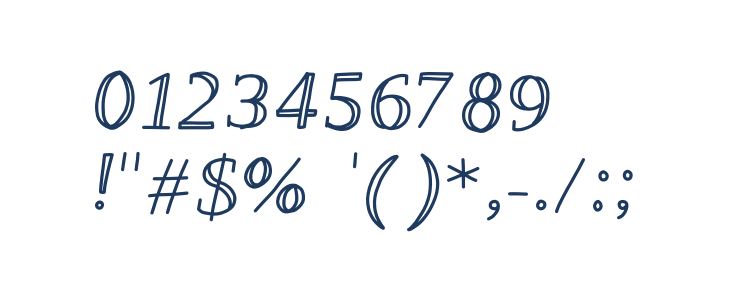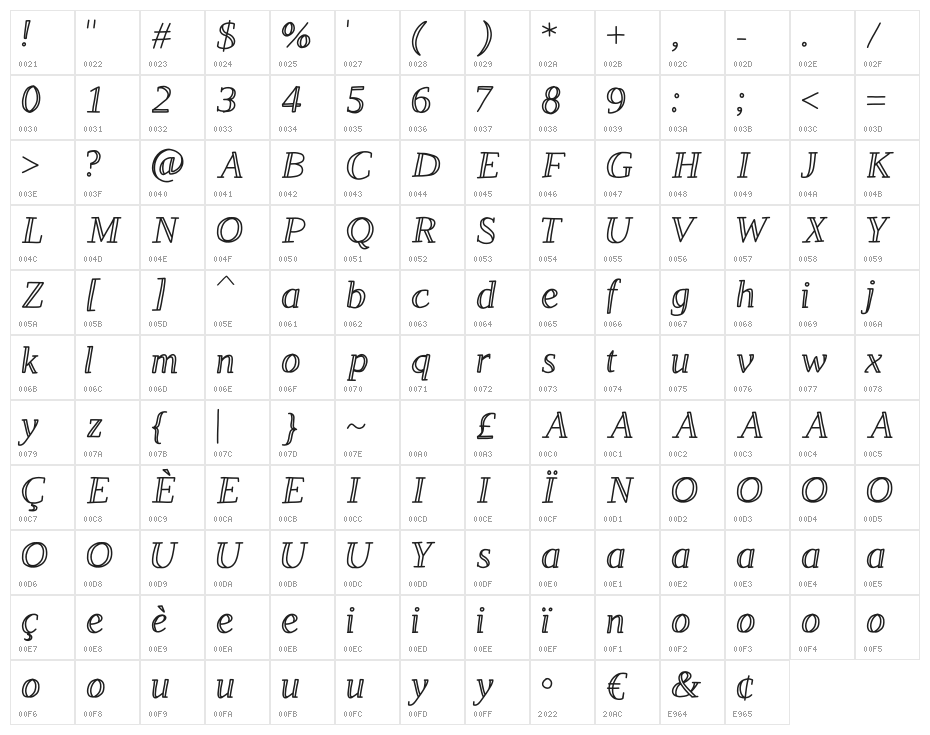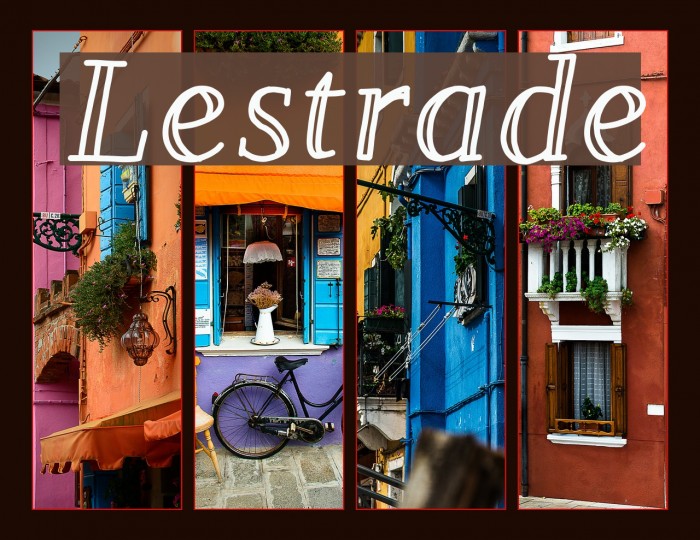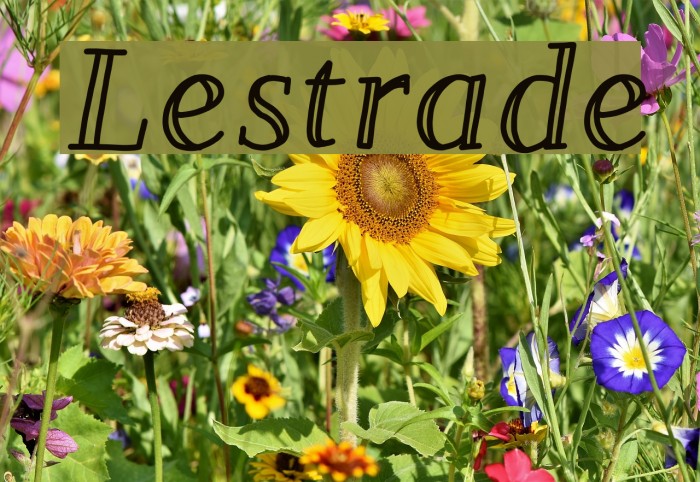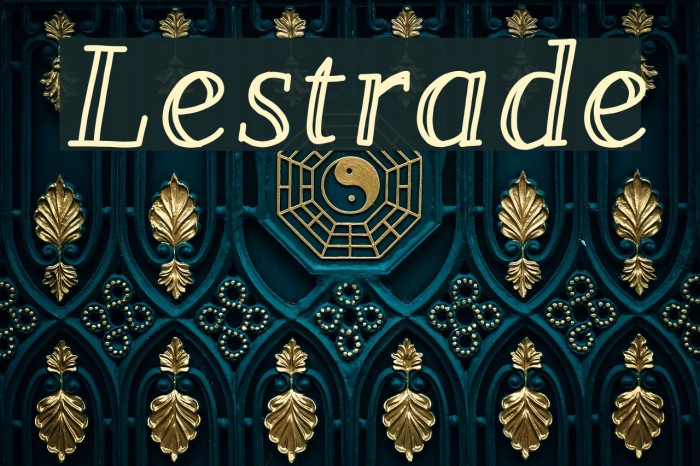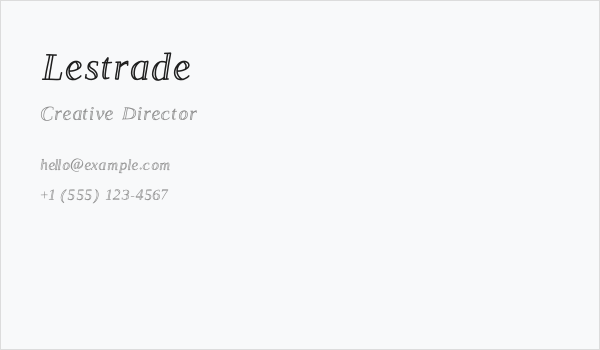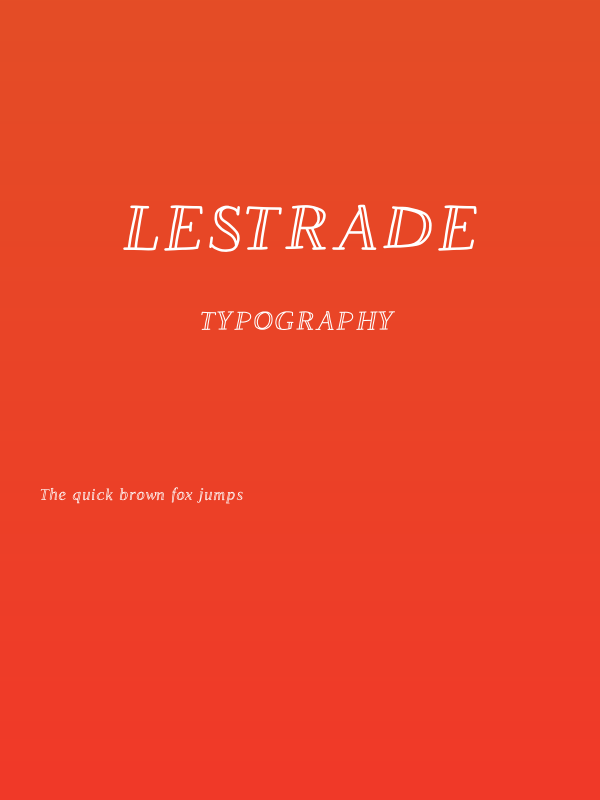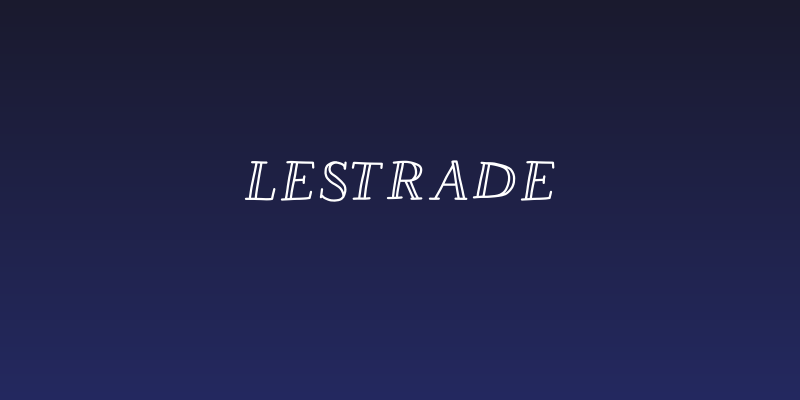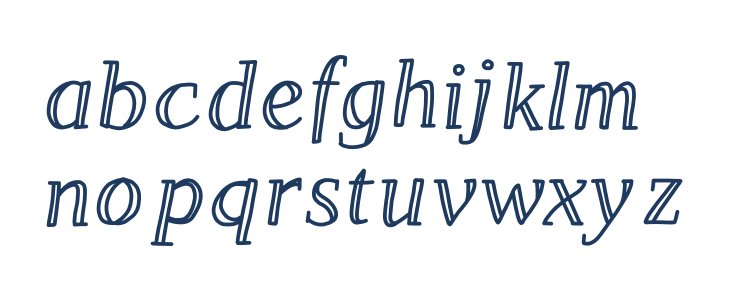
Lestrade Font
Lestrade Description
This font features a classic serif style with a slight slant, giving it an elegant and sophisticated appearance. The uppercase letters are bold and prominent, while the lowercase letters maintain a consistent flow with a touch of flair. Numbers are clear and easily distinguishable, making them suitable for various applications. The special characters are well-integrated, maintaining the overall aesthetic of the font. The strokes are moderately thick, providing a medium contrast that enhances readability without compromising style.
| Proposed Projects | Ideal for formal invitations, editorial design, branding projects, and elegant signage. |